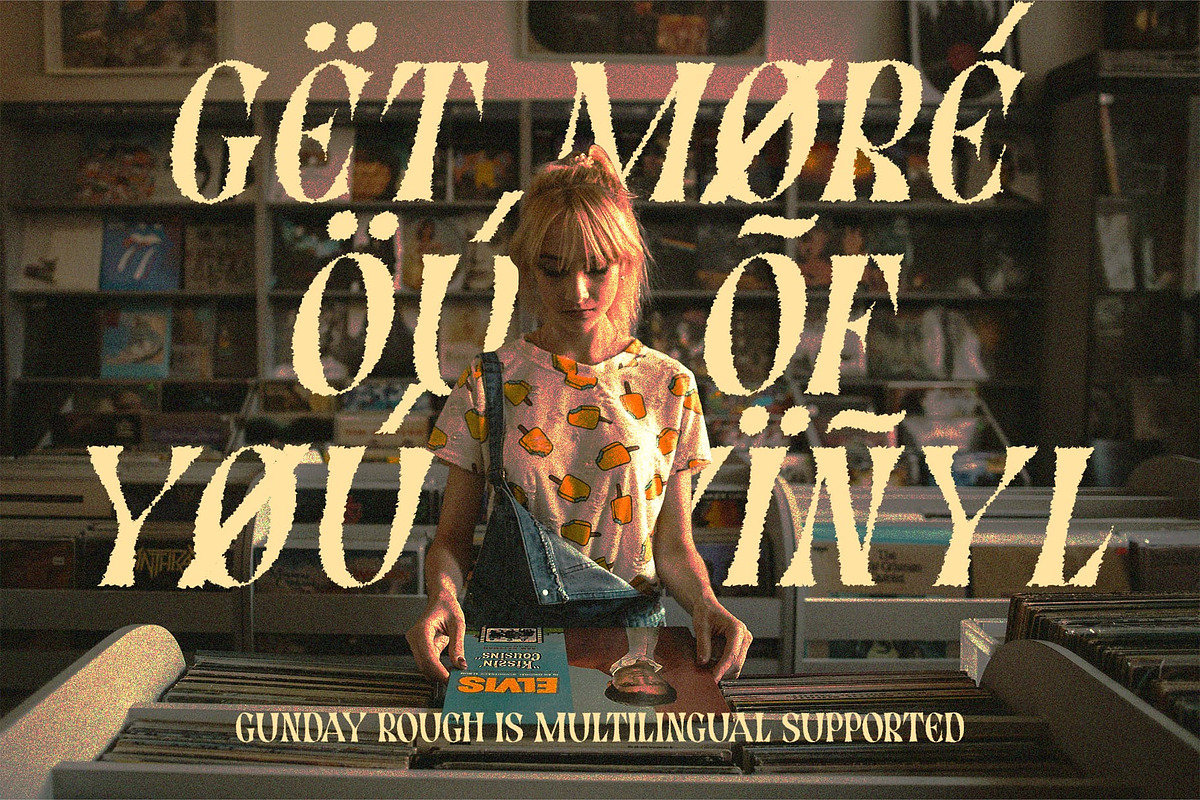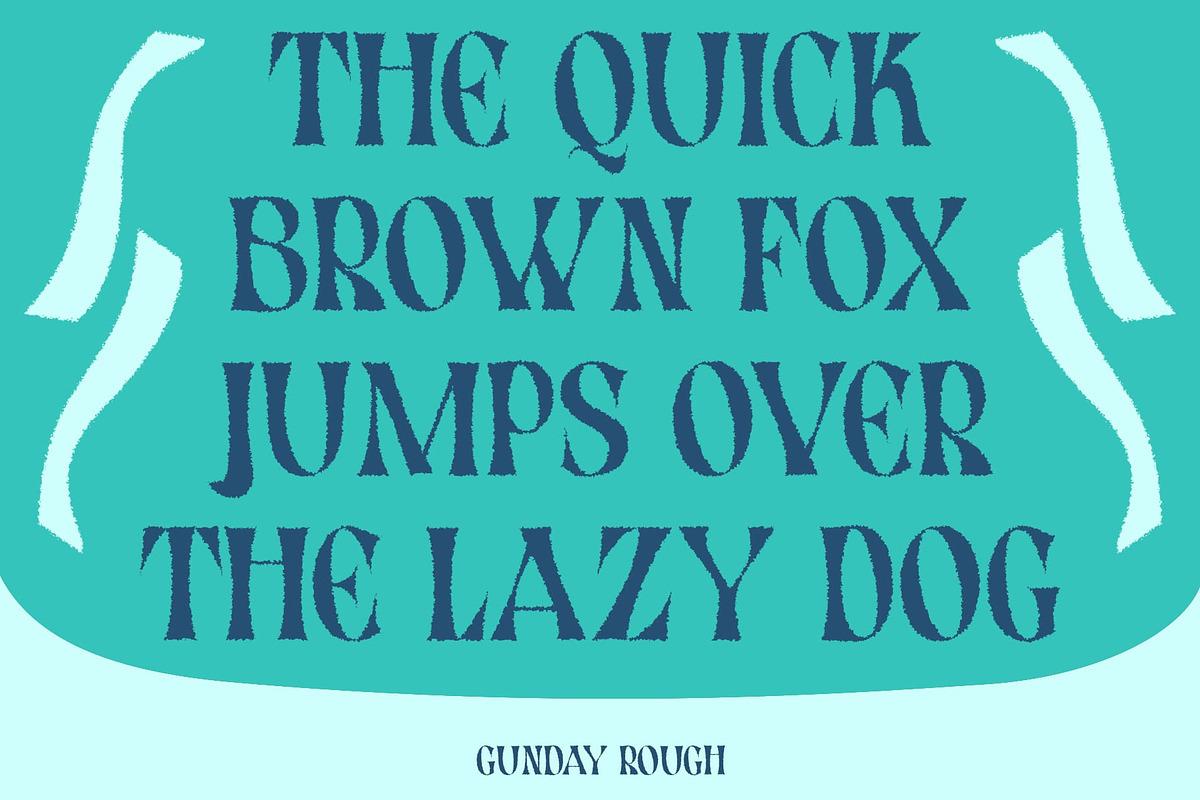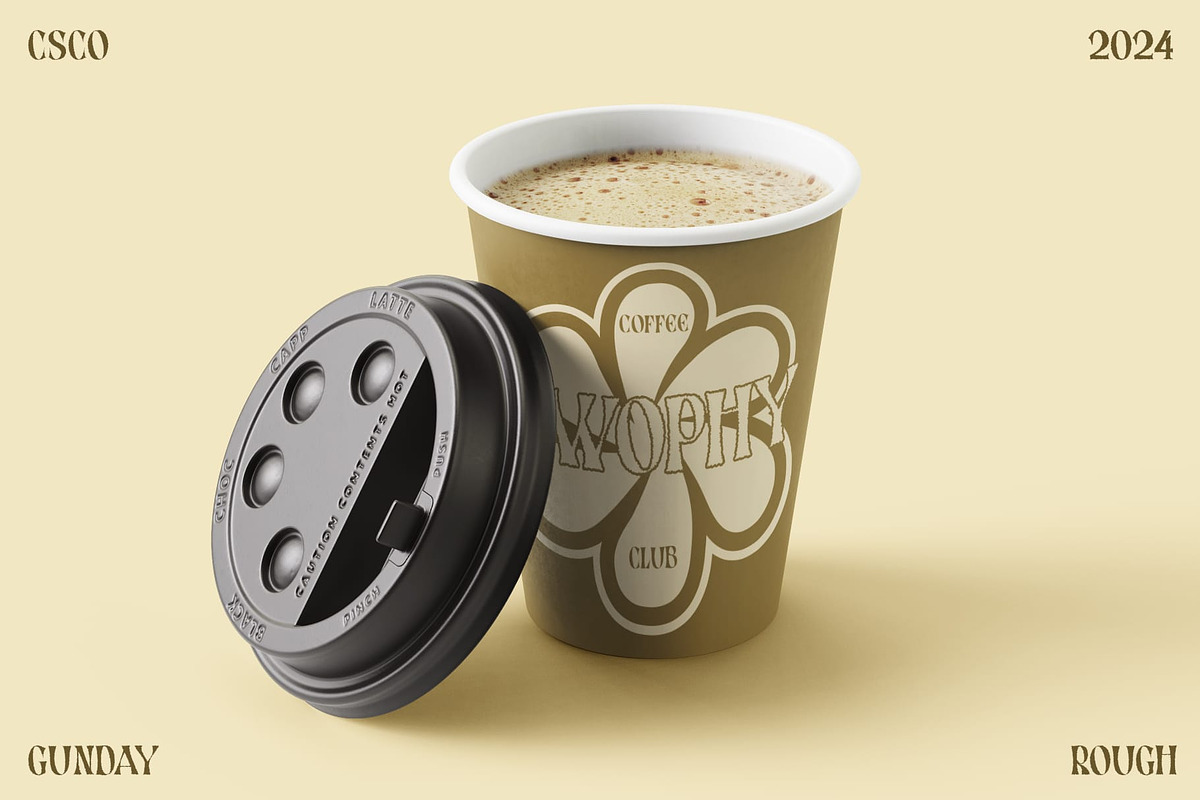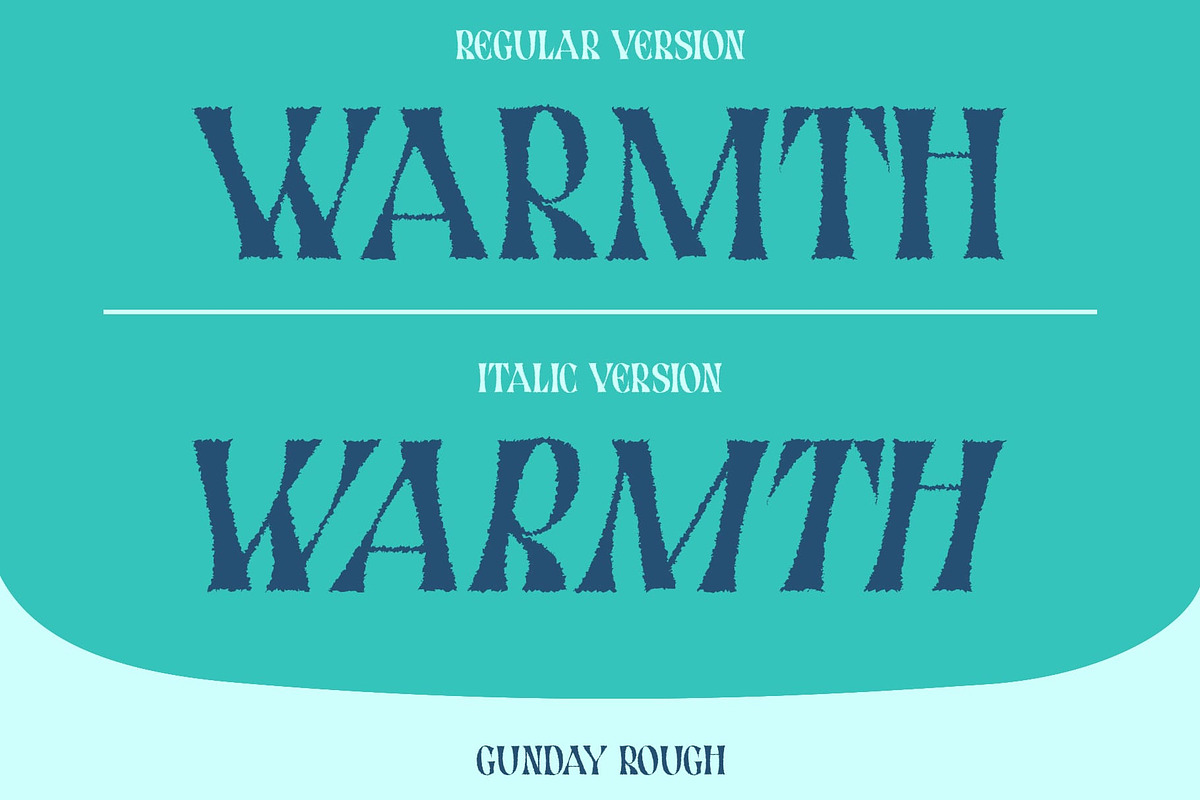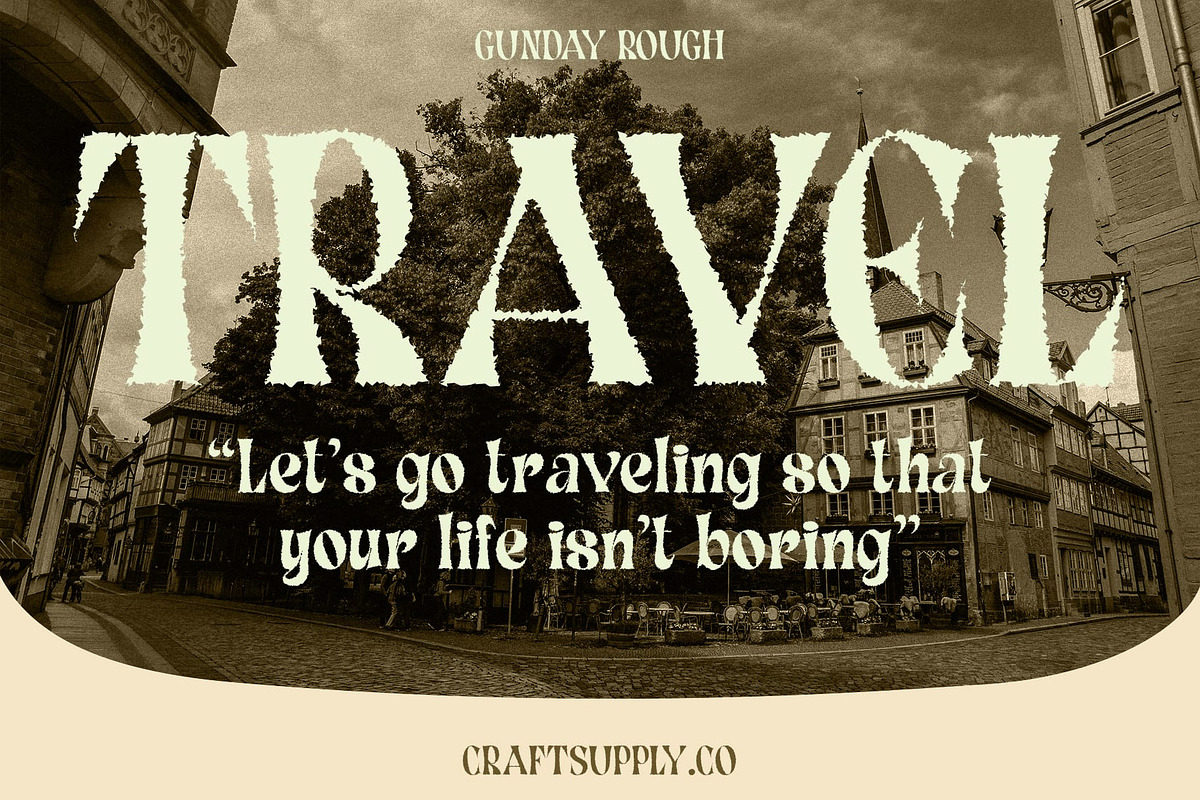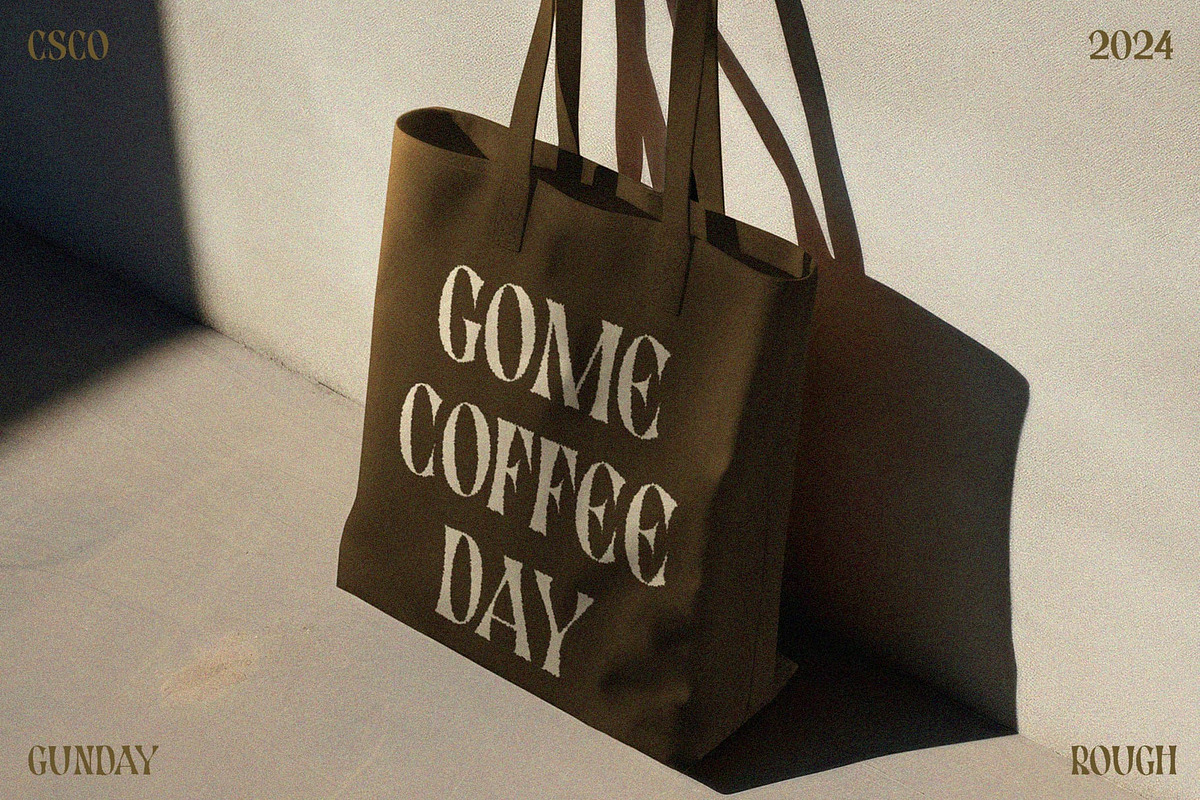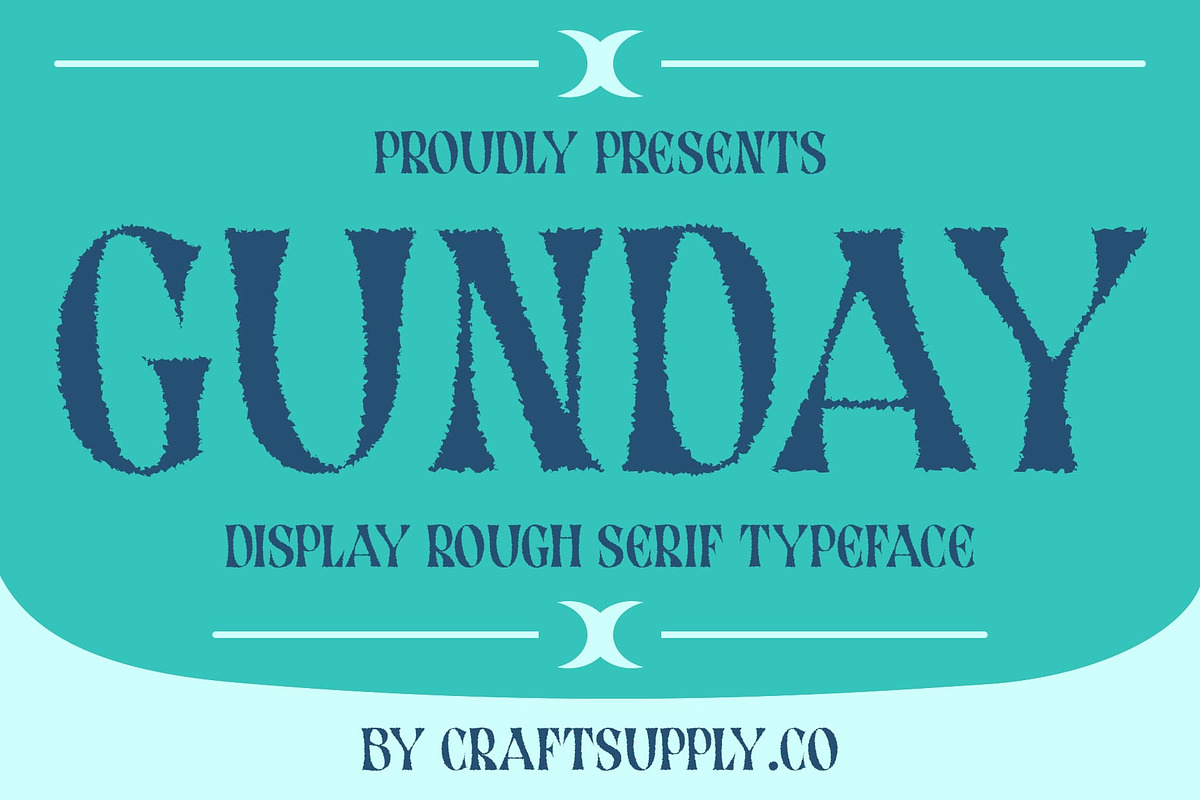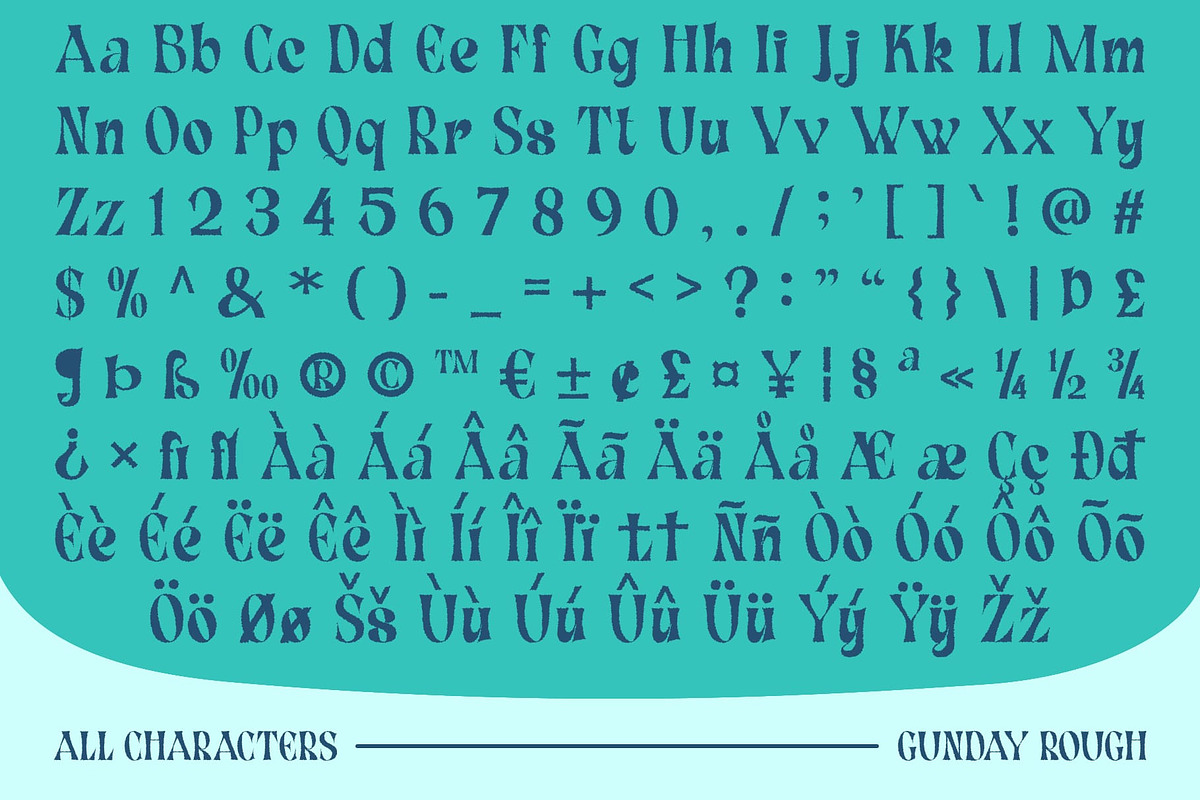
Gunday Rough
Gunday Rough Font: Bold Classic with a Gritty Edge
Display Serif Font with Bold Forms Gunday Rough is a display serif font that merges bold forms with a timeless classic appearance. Its thick letters and pronounced serifs create a commanding and authoritative presence, making it ideal for designs that need to make a strong visual impact.
Distinctive Rough Effect for Added Character The distinctive rough effect of Gunday Rough introduces a gritty texture that enhances its classic design. This effect adds depth and authenticity, giving the font a rugged charm that sets it apart from more polished typefaces.
Strong Serif Characteristics for Prominence Featuring robust serif elements, Gunday Rough ensures a prominent and authoritative impression. Its strong letterforms are perfect for making headlines, posters, and branding projects stand out with a sense of tradition and strength.
Versatile for Vintage-Inspired Designs Ideal for designs that blend visual strength with classic elegance, Gunday Rough is well-suited for retro-themed projects. Whether you’re crafting striking posters, impactful headlines, or memorable branding materials, this font provides the perfect balance of vintage allure and captivating character.